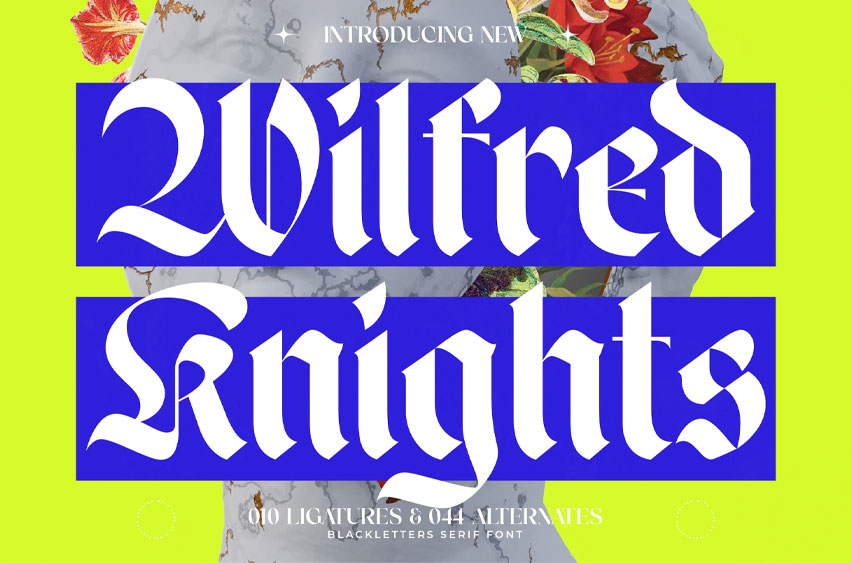
Wilfred Knights Font
Wilfred Knights Font is a bold blackletter serif font with a dramatic gothic style and refined details. Featuring strong strokes, intricate ligatures, and powerful alternates, this typeface is perfect for music covers and editorial titles.
Its medieval-inspired aesthetic, fused with modern design elements, makes Wilfred Knights a versatile and striking choice for both print and digital projects.